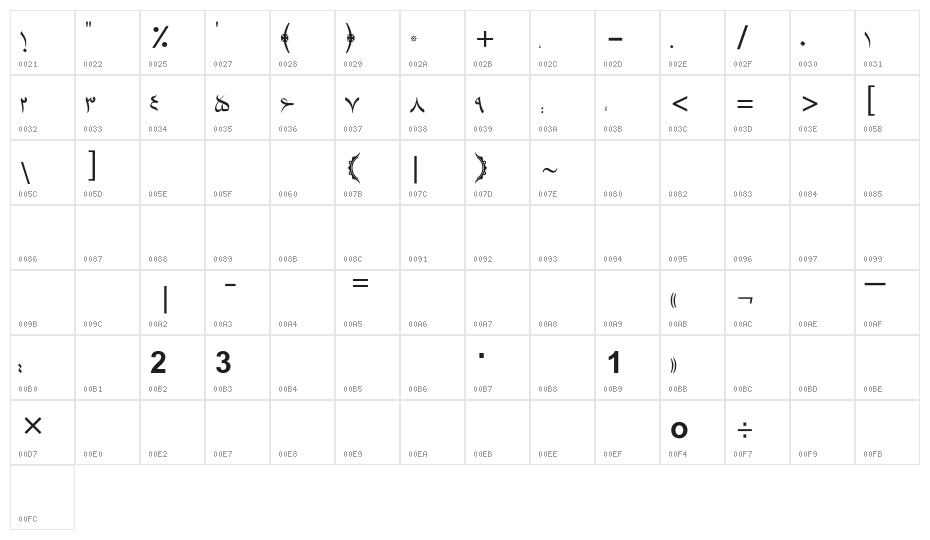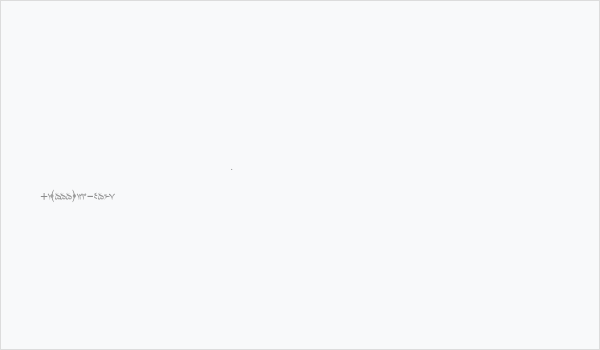
Moallaa I Font
Moallaa I Description
This font features a unique and artistic design, characterized by its flowing and interconnected strokes that resemble traditional calligraphy. The characters are ornate, with a high level of detail and embellishment, creating a sense of elegance and sophistication. The font's style is reminiscent of ancient scripts, with a modern twist that makes it suitable for contemporary designs. The intricate curves and loops of the letters give it a decorative appearance, making it ideal for projects that require a touch of luxury and refinement. Its distinctiveness makes it stand out, ensuring that any text set in this font will capture attention and convey a sense of artistry.
| Proposed Projects | Ideal for wedding invitations, luxury branding, artistic posters, and decorative headings. |